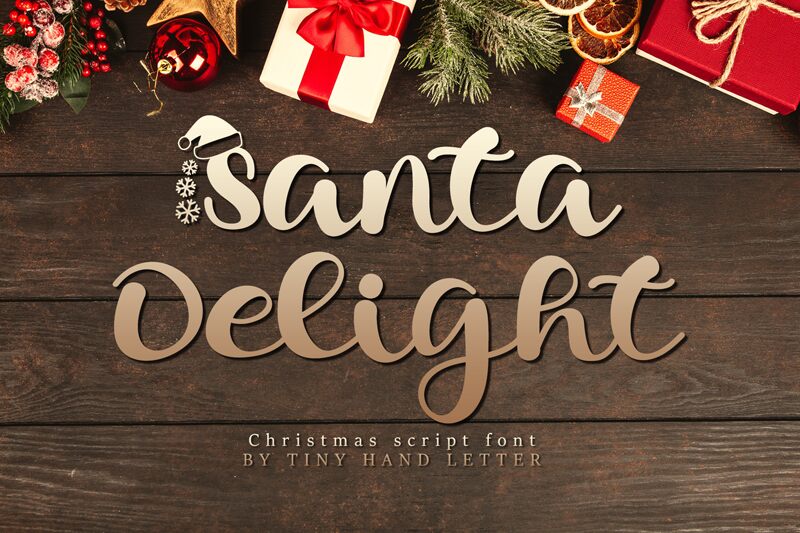
Santa Delight
Santa Delight, designed by Tiny Hand Letter, is a festive script font that captures the joy and magic of the holiday season. Its semi-bold weight ensures a presence that is both assertive and welcoming, while the semi-expanded width provides a sense of openness akin to a winter's night sky. The flowing lines and elegant swashes mimic the graceful curves of ribbon on a carefully wrapped gift, infusing each character with warmth and charm.
With an aesthetic that combines traditional Christmas elegance with modern design sensibilities, Santa Delight offers versatility for various creative projects. Whether it's for holiday greeting cards, event invitations, or seasonal advertising campaigns, this font adds a personal touch reminiscent of hand-written calligraphy. Embrace the spirit of the holidays in your designs with Santa Delight—a font that is as delightful and unique as its name suggests.